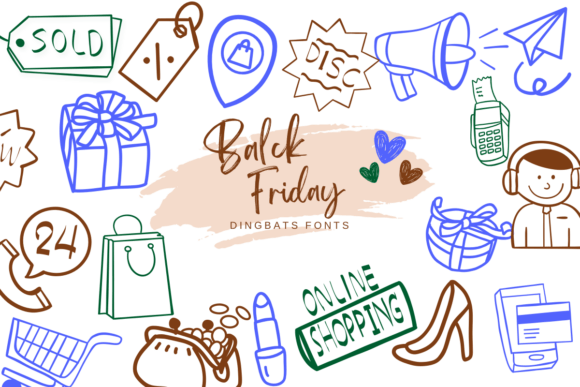
The Ultimate Guide to Black Friday Font: Elevate Your Holiday Designs
Ah, Black Friday – the shopping event that brings excitement and chaos to designers, crafters, and creative hobbyists alike! I still remember the time I was working on a project for a client’s Black Friday sale, and I was struggling to find the perfect font to capture the essence of the shopping frenzy. The client wanted something fun, creative, and attention-grabbing, but I was coming up blank. That’s when I stumbled upon the Black Friday Dingbat Font, and it changed the game!
This fantastic font features fun and creative images related to Black Friday shopping, with each letter and symbol including icons like shopping bags, sale tags, gift boxes, and more. It’s perfect for adding a festive touch to flyers, posters, and social media posts during the holiday shopping season!
- Unique and creative designs for each letter and symbol
- Perfect for Black Friday and holiday-themed designs
- Easily adds a festive touch to any project
- OpenType features and glyphs for endless creative possibilities
While the Black Friday Dingbat Font is amazing, there are a few things to keep in mind:
- Some letters and symbols may be more intricate than others, which can affect legibility at smaller font sizes
- May not be suitable for formal or professional designs
- Requires a bit of experimentation to get the most out of its OpenType features
The Designer Inspiration Behind the Black Friday Font
The Black Friday Font was designed with the holiday shopping season in mind. The designer wanted to create a font that would capture the excitement and energy of Black Friday sales, while also providing a fun and creative way to add a festive touch to designs. The result is a unique and versatile font that’s perfect for designers, crafters, and creative hobbyists alike.
Q: What type of designs is the Black Friday Font best suited for?
A: The Black Friday Font is perfect for creating holiday-themed designs, such as flyers, posters, social media posts, and gift tags.